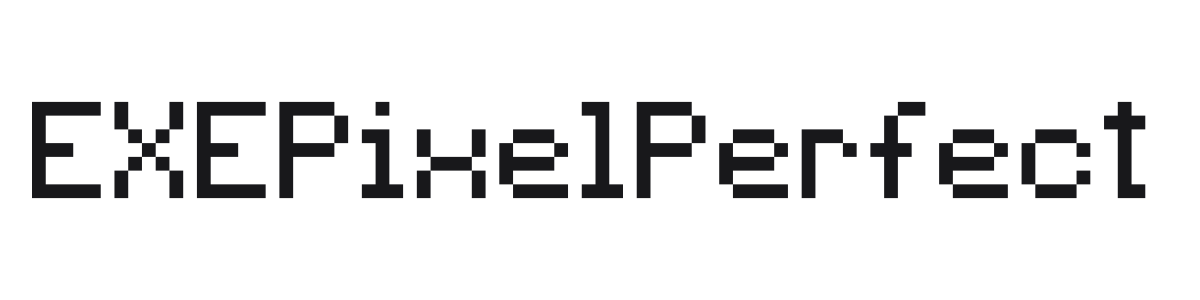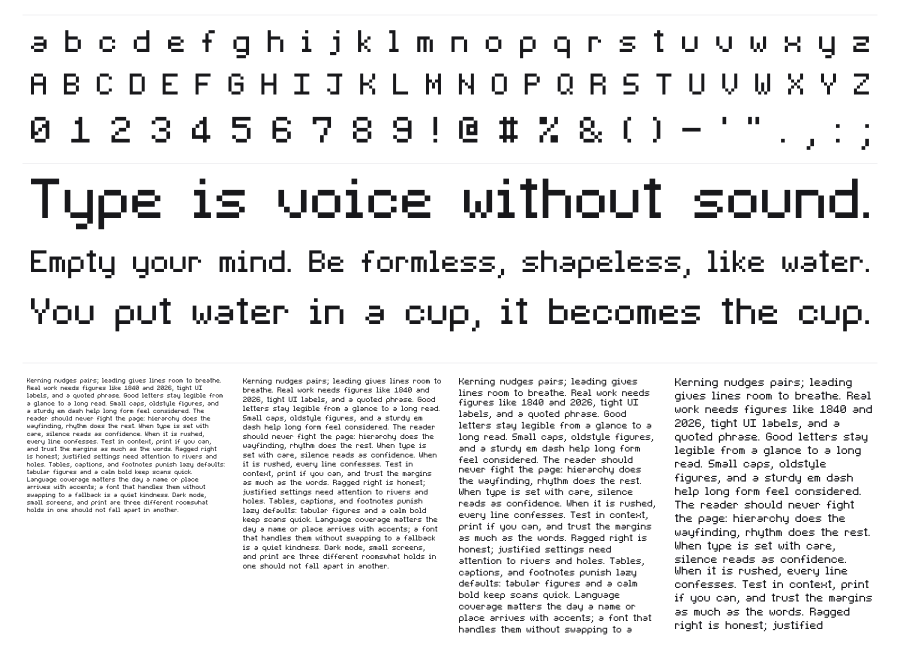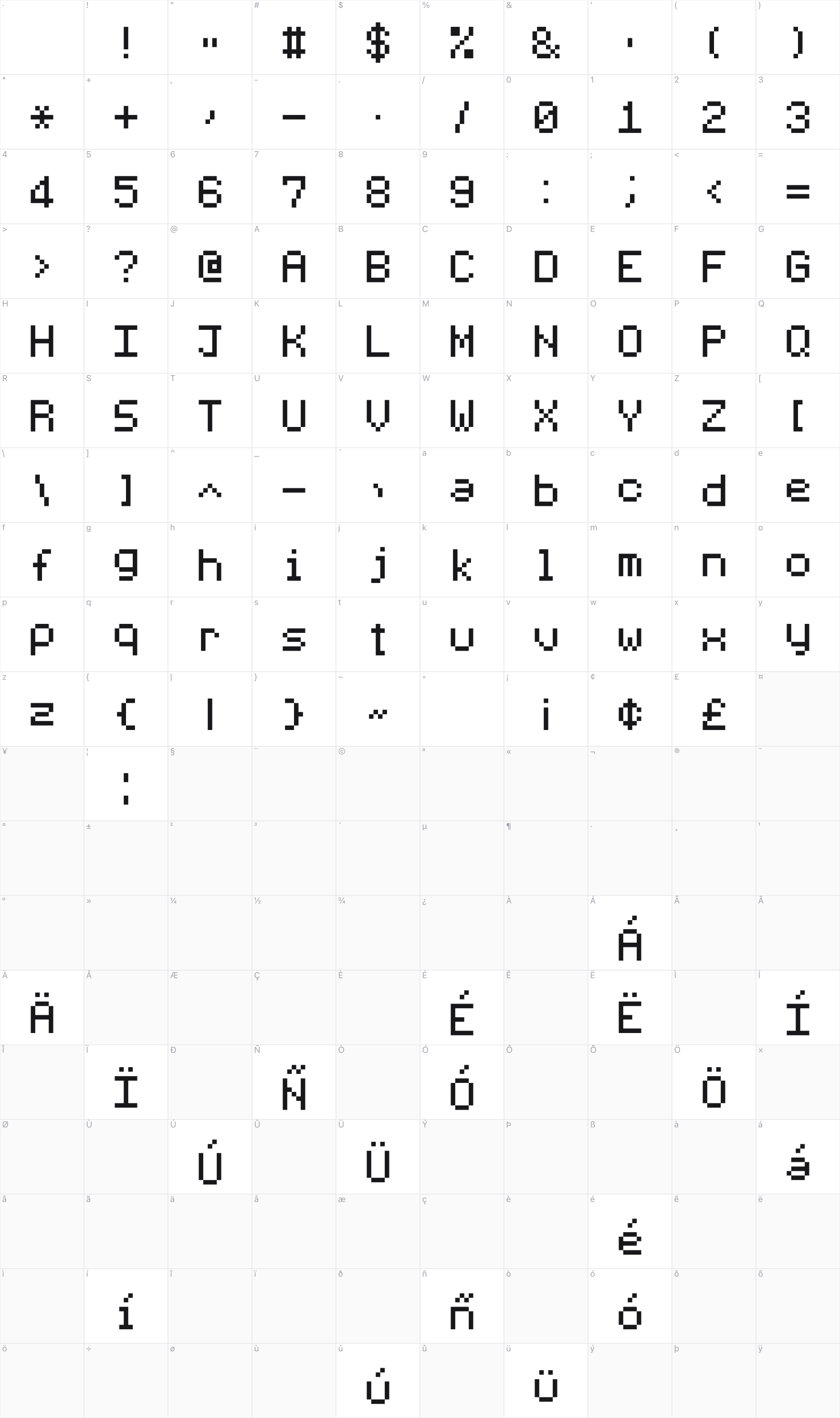
EXEPixelPerfect
EXEPixelPerfect is a bold bitmap font built on a strict pixel grid, evoking the chunky display text of 8-bit consoles and early home computers. Every character is constructed from uniform square blocks with no stroke variation, giving it a dense, no-nonsense retro weight. A natural pick for game UIs, chiptune aesthetics, and anything that wants that classic digital feel.